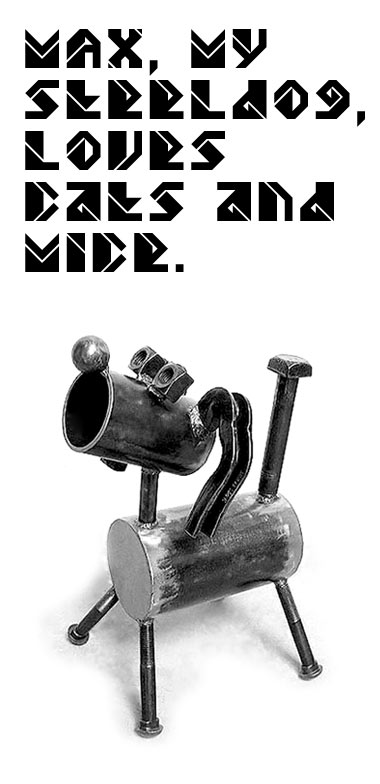
A 10 for patience to do all those characters. I pat myself on the back if I do 26+26+10+5 characters. By that you deserve 600/67 or 9.8 pats on your back for this one font alone. :)
i agree with thal. this one is amzing and fits right in with other top picks. not only an artistic achievement, but a technical one as well. better? like great singers - each one unique and magnificent in their own right...and this font, brother, really sings :) very jazzy indeed.
Very nice type, prototype. Keep them coming.
This is pretty damn good, I love it! I like the diagonal lines, and the fact it has more than 600 chars, Wow!